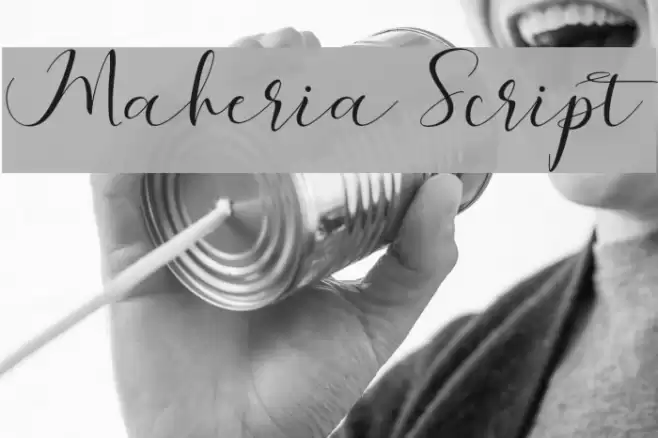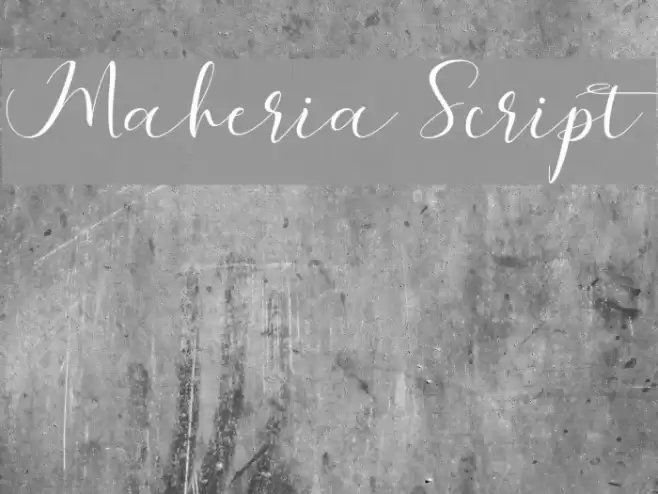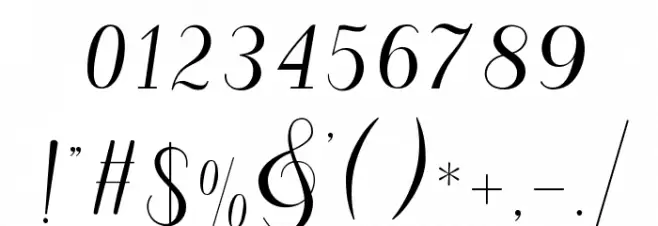
Maheria Script Font
Maheria Script Description
This elegant script font features flowing, interconnected letters that exude a sense of sophistication and grace. The uppercase letters are characterized by their sweeping curves and loops, creating a harmonious and fluid appearance. The lowercase letters maintain a consistent style, with delicate ascenders and descenders that enhance the font's overall elegance. The numerals are designed with a similar flair, ensuring a cohesive look across all characters. Special characters are thoughtfully integrated, maintaining the font's aesthetic appeal. This font is perfect for projects that require a touch of elegance and refinement.
An elegant script font with flowing, interconnected letters and sophisticated curves from Uncategorized fonts.
- Proposed Projects: Ideal for wedding invitations, elegant branding, high-end product packaging, and decorative signage.
- Overall Style: Elegant, Sophisticated
- Use Case: Logos, Invitations, Decorative text